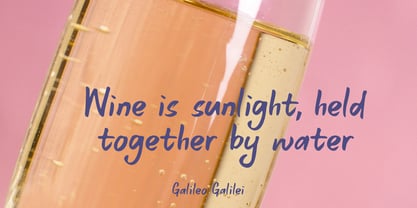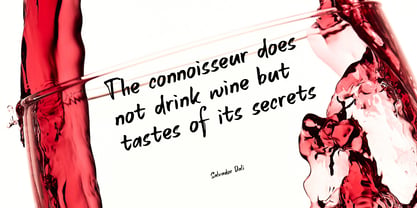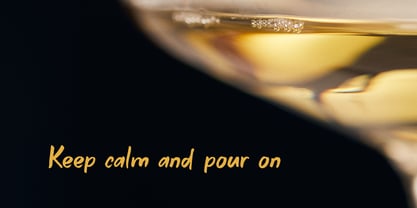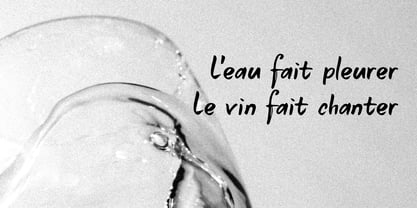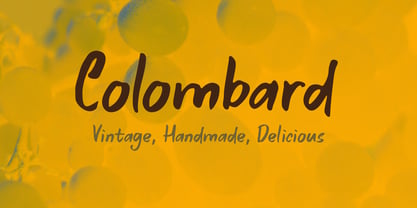
Colombard Pro
von Hanoded
Die Schriftfamilie Colombard Pro wurde von David Kerkhoff entworfen und von Hanoded veröffentlicht. Colombard Pro enthält 2 Stile und Familienpaketoptionen. Mehr über diese Familie
The other day I drank a glass of white wine, which was partly made with Colombard grapes. When I created this font, I needed a bit of a ‘posh’ name, so I settled on Colombard.
Colombard is a nice, handwritten font. Quite elegant, but cheeky at the same time. It comes with extensive language support and a full set of Discretionary Ligatures for double letter combinations.
Hanoded is run by Dutchman David Kerkhoff. His fonts are a mishmash of styles, as he just creates whatever pops into his head. You will find a lot of brush fonts in his collection, as his favourite tools are brushes and Chinese ink, with cartoon style fonts and script fonts complementing his repertoire. Aside from making fonts, David occasionally guides tours in far-flung places, renovates his '30's house and tries reasoning with his wife and (teenage) kids. Not an easy task!